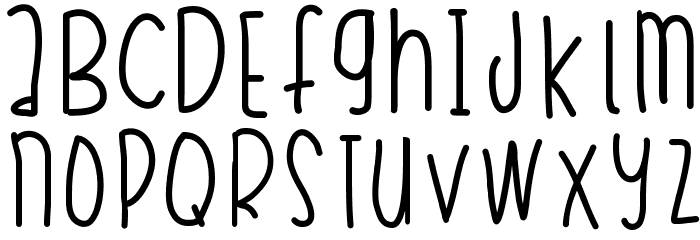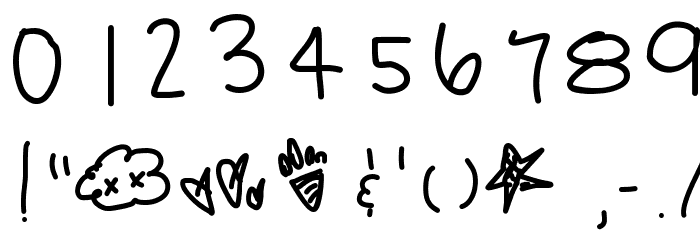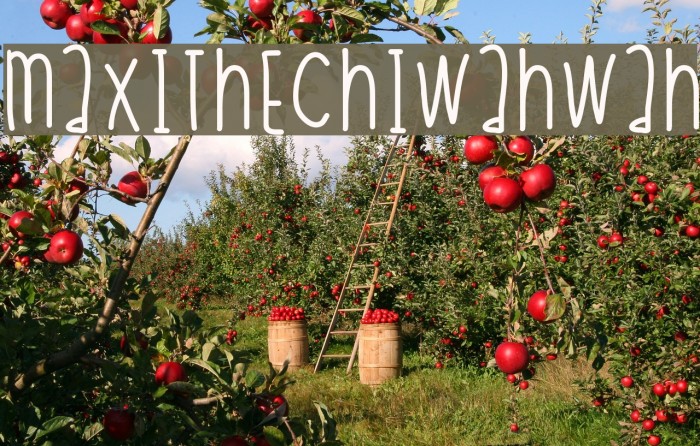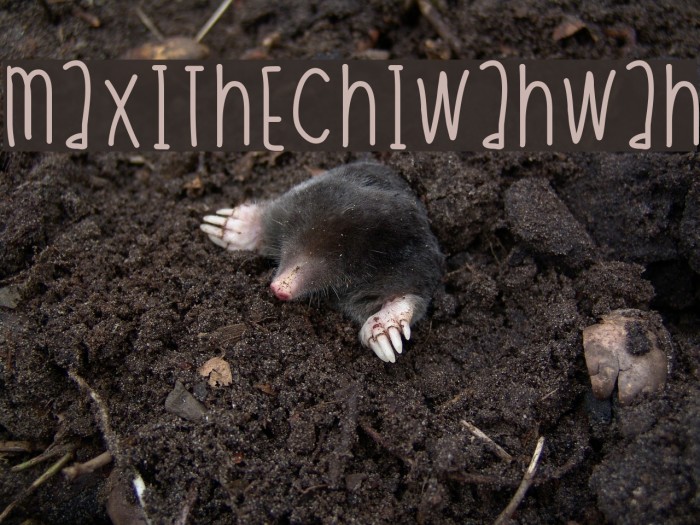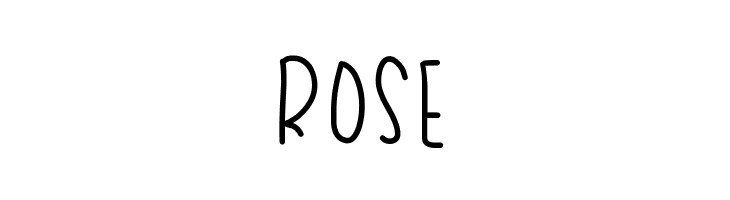
MaxiTheChiwahwah Font
This playful and whimsical font features a handwritten style with a casual and friendly appearance. The characters are tall and narrow with rounded edges, giving them a soft and approachable look. The uppercase and lowercase letters maintain a consistent height, creating a uniform and cohesive appearance. The numbers and special characters are designed with the same playful style, adding to the overall charm of the font. The strokes are consistent in width, providing a clean and legible look, while the slight irregularities in the lines add a touch of personality and uniqueness.
- Proposed Projects: Ideal for children's books, greeting cards, playful branding, and social media graphics.
- Category: Handwritten
- Overall Style: Playful
- Use Case: Headlines, Logos, Social Media Graphics